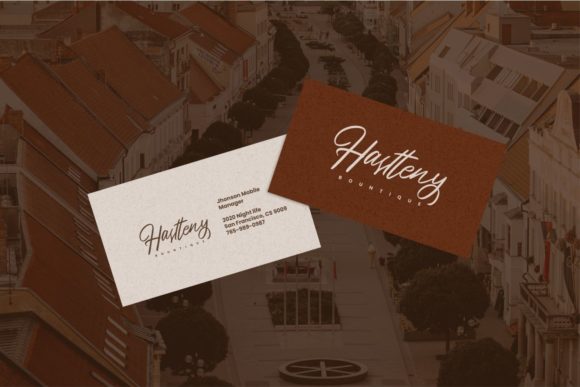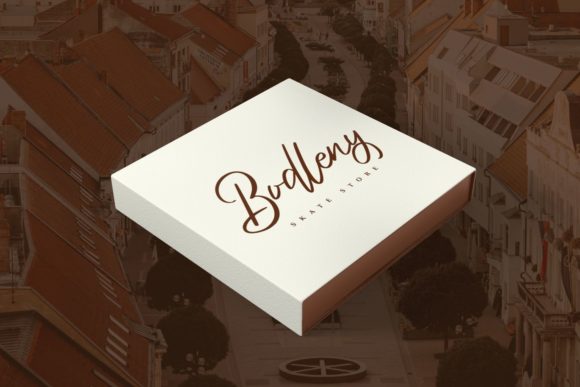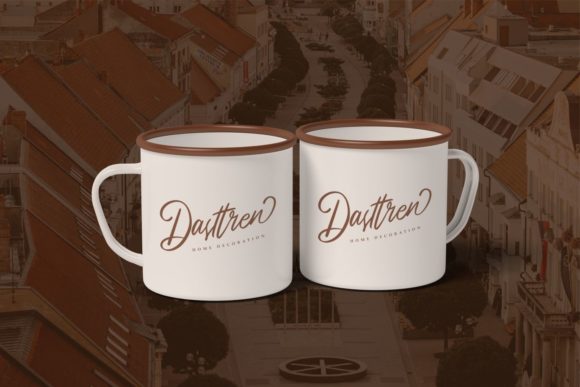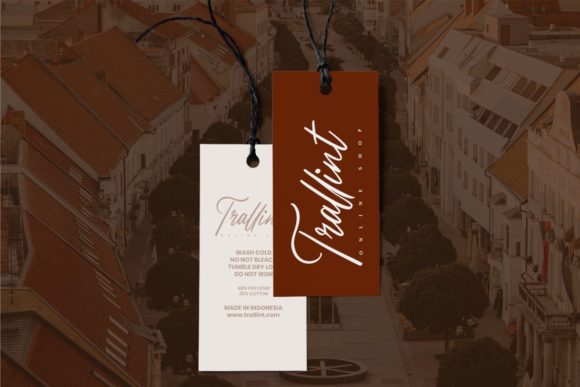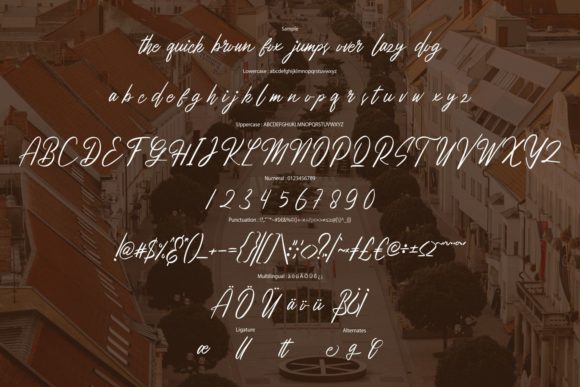
Introduction to Roling Stone Font
Roling Stone is a stylish and delicate script font.
It has a clean, thin and smooth vibe and it will be a hit for any design that you want to add it to .
Key Features of Roling Stone Font